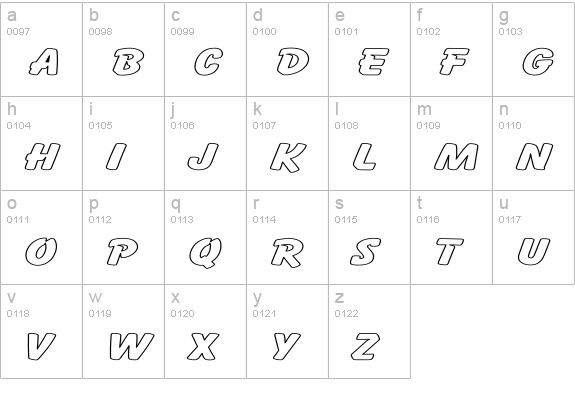
Cartoon Hollow Expanded Font Details
Cartoon Hollow Expanded is a distinctive, extended-width variant in the Cartoon typeface family \xE2\x80\x94 well suited to design and typography projects.
Cartoon Hollow Expanded font is a whimsical and playful typeface that brings a touch of fun to your design projects. With its bold and rounded letters, this font exudes a sense of lightheartedness and charm. Perfect for creating eye-catching headlines, posters, invitations, and more, Cartoon Hollow Expanded adds a cheerful and animated feel to any text. The best part is that Cartoon Hollow Expanded font is completely free to download at FontsMarket.com. Whether you're a designer looking to add a touch of personality to your work or just someone who loves all things cute and quirky, this font is sure to delight. So why wait? Download Cartoon Hollow Expanded today and let your creativity shine!